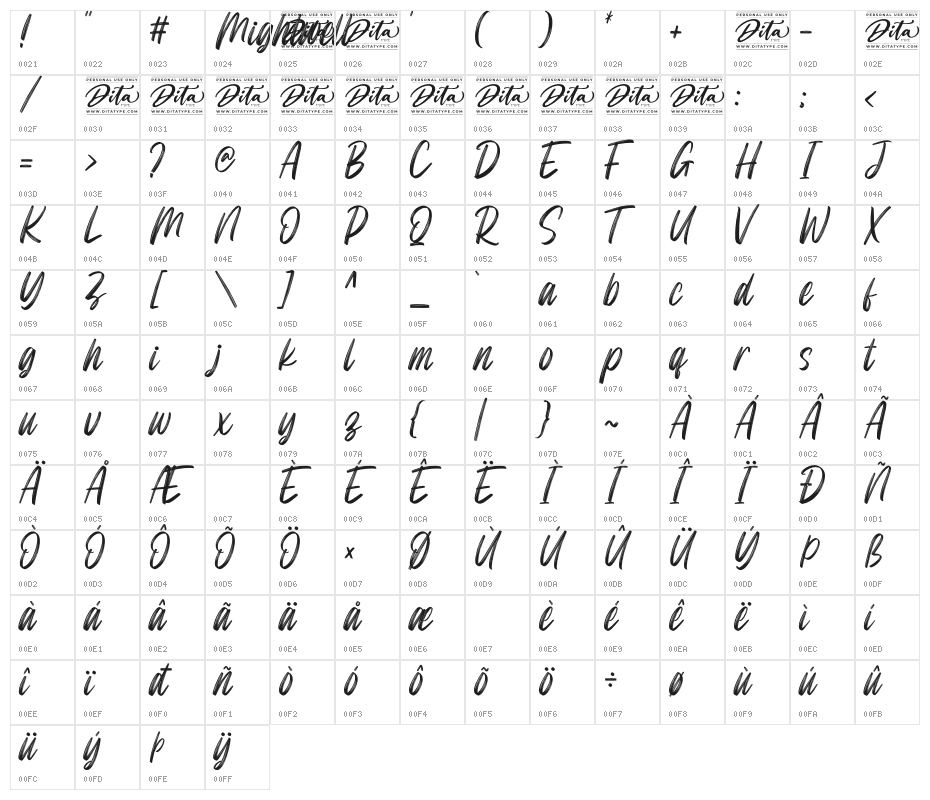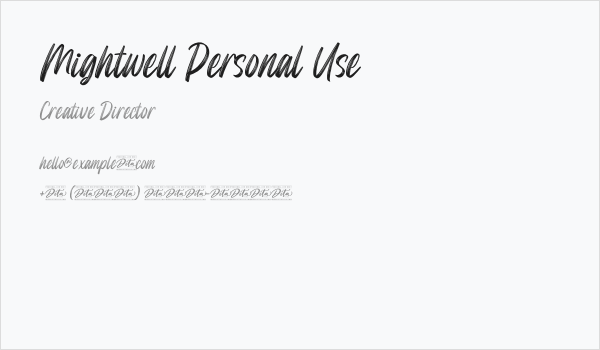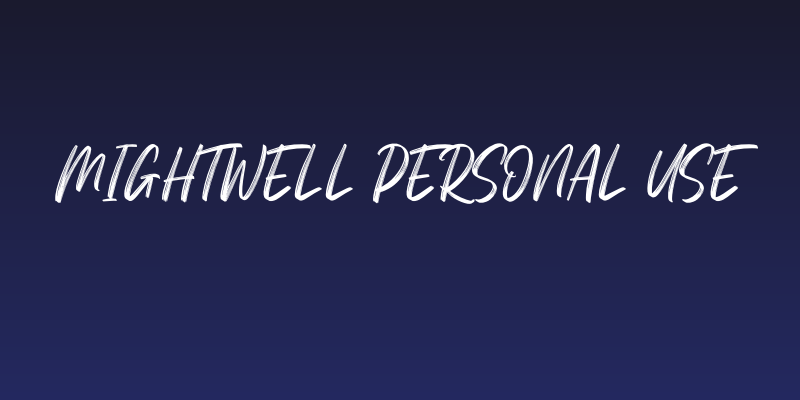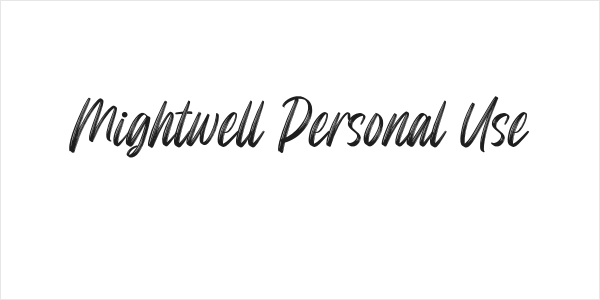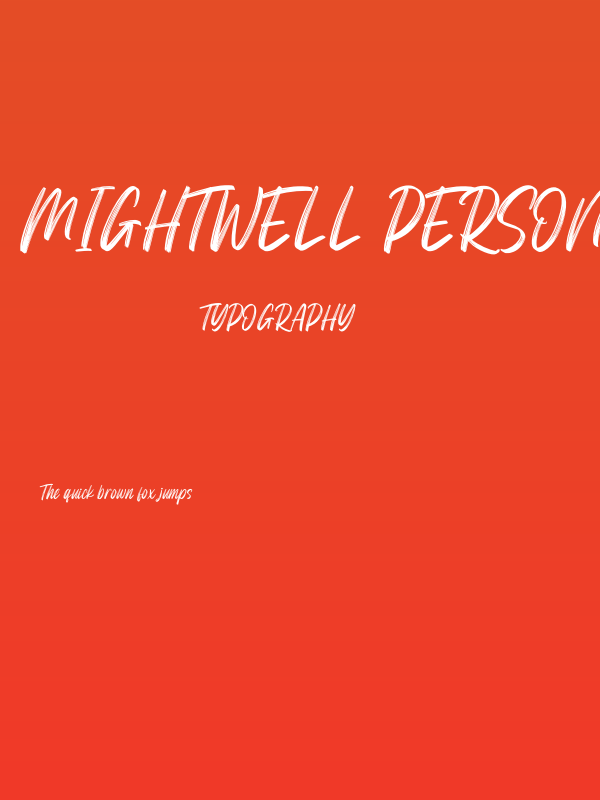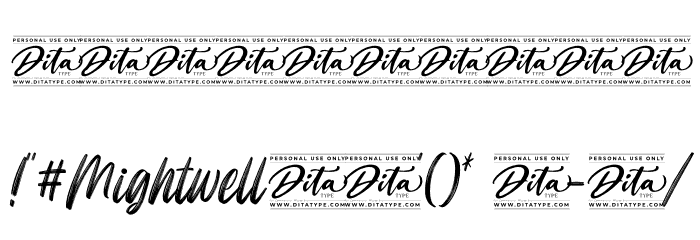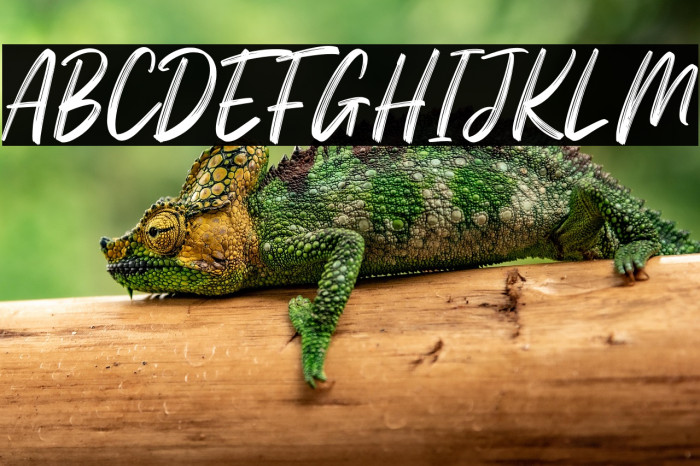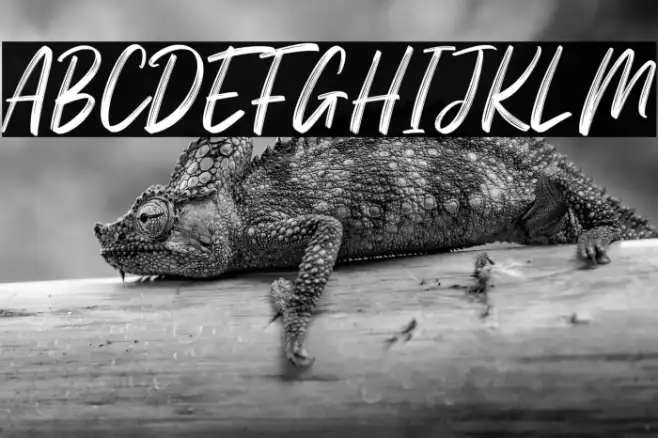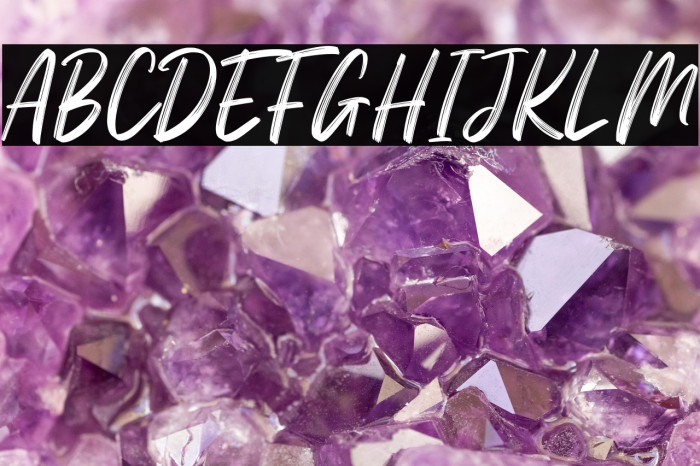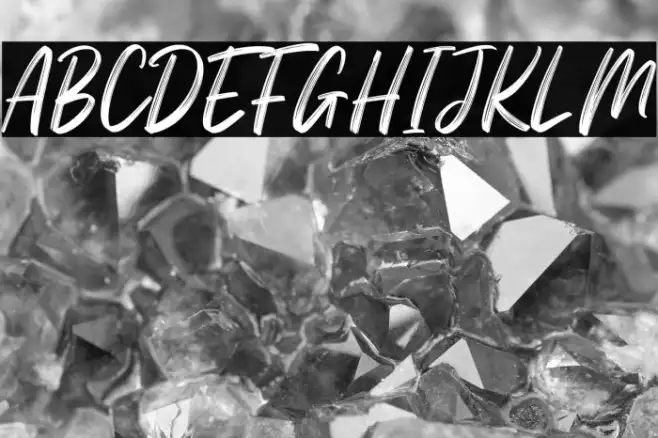
Mightwell Personal Use Font
Mightwell Personal Use Description
This font features a dynamic and expressive handwritten style, characterized by bold, sweeping strokes that convey a sense of energy and movement. The letters are slightly slanted, adding to the casual and informal appearance. The strokes vary in thickness, creating a textured and lively look that mimics the flow of a brush pen. This font is ideal for projects that require a personal touch or a creative flair, such as invitations, posters, or branding materials. The uppercase and lowercase letters are well-balanced, with a consistent rhythm that enhances readability while maintaining a unique artistic quality.
| Proposed Projects | Ideal for invitations, posters, branding, and creative projects needing a personal touch. |